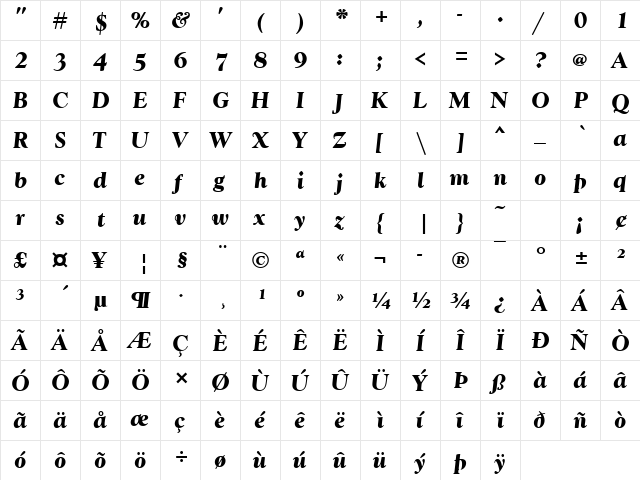
GoudyWtcT Bold Italic
GoudyWtcT takes a measured approach to typography — its balanced proportions and neutral character make it a reliable workhorse for both digital and print work. The slanted form adds forward momentum and visual energy. Its bold stroke weight gives it real presence on the page.